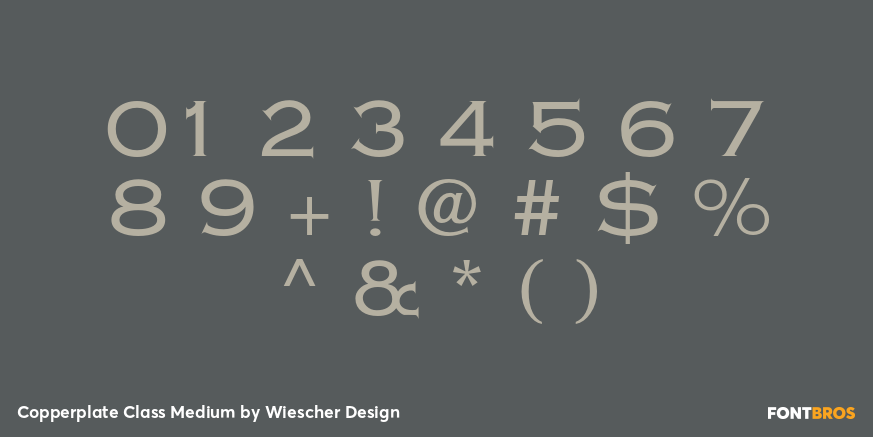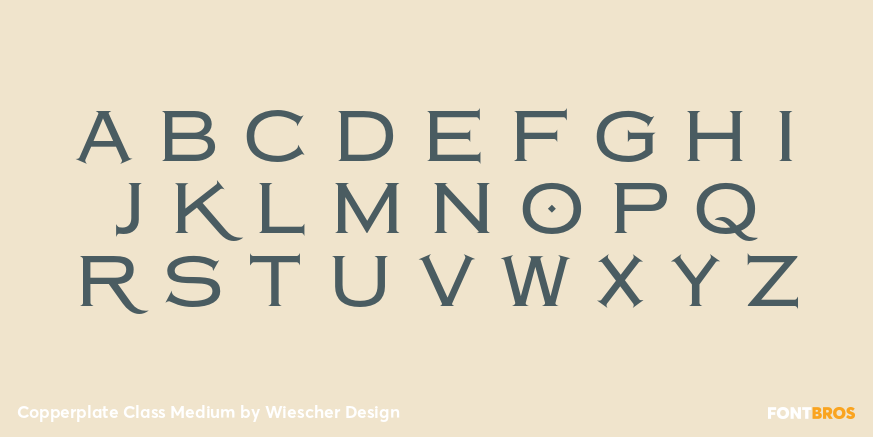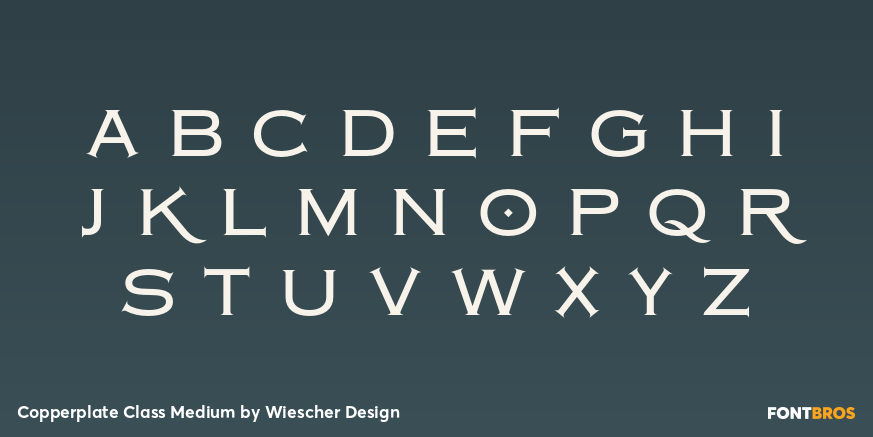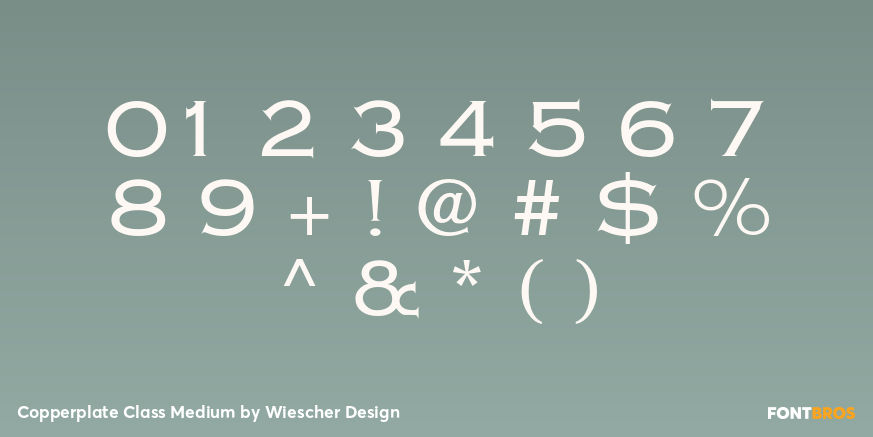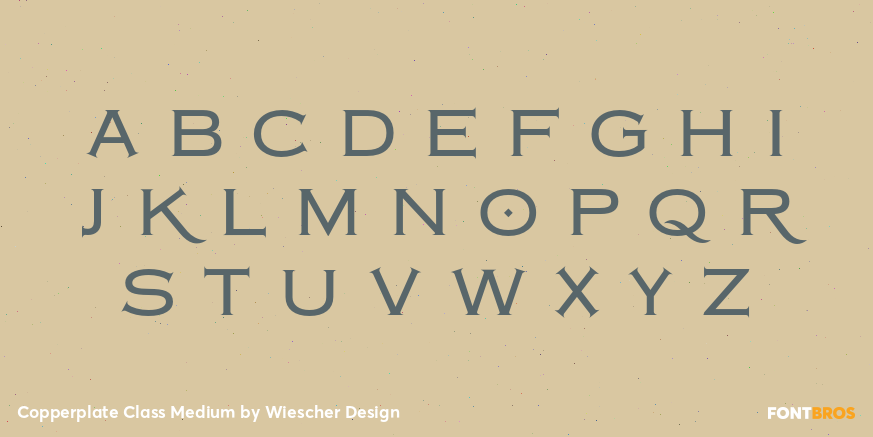
Copperplate Class Medium
Font Family by Wiescher Design
Copperplate was the classic nineteenth century engravers typeface, consisting of capitals and small caps only. Among others (for example Deberny & Peignot) F. W. Goudy's cut for ATF around 1901 is probably the most widely known.
Copperplate typefaces are traditionally used for business cards and all that 'serious? stuff. My Copperplate Classic is a completely new design, based on some old samples. To make it look more up-to-date and elegant, I gave it some extra swings here and there. The old fonts were all designed with clogging corners or points that can break off in the minds of its designers. Today we do not have those problems any longer, so I could give my Copperplate Classic real sharp pointed serifs.
To give you more choice I now added this medium cut in three variations, medium, sans and rounded!